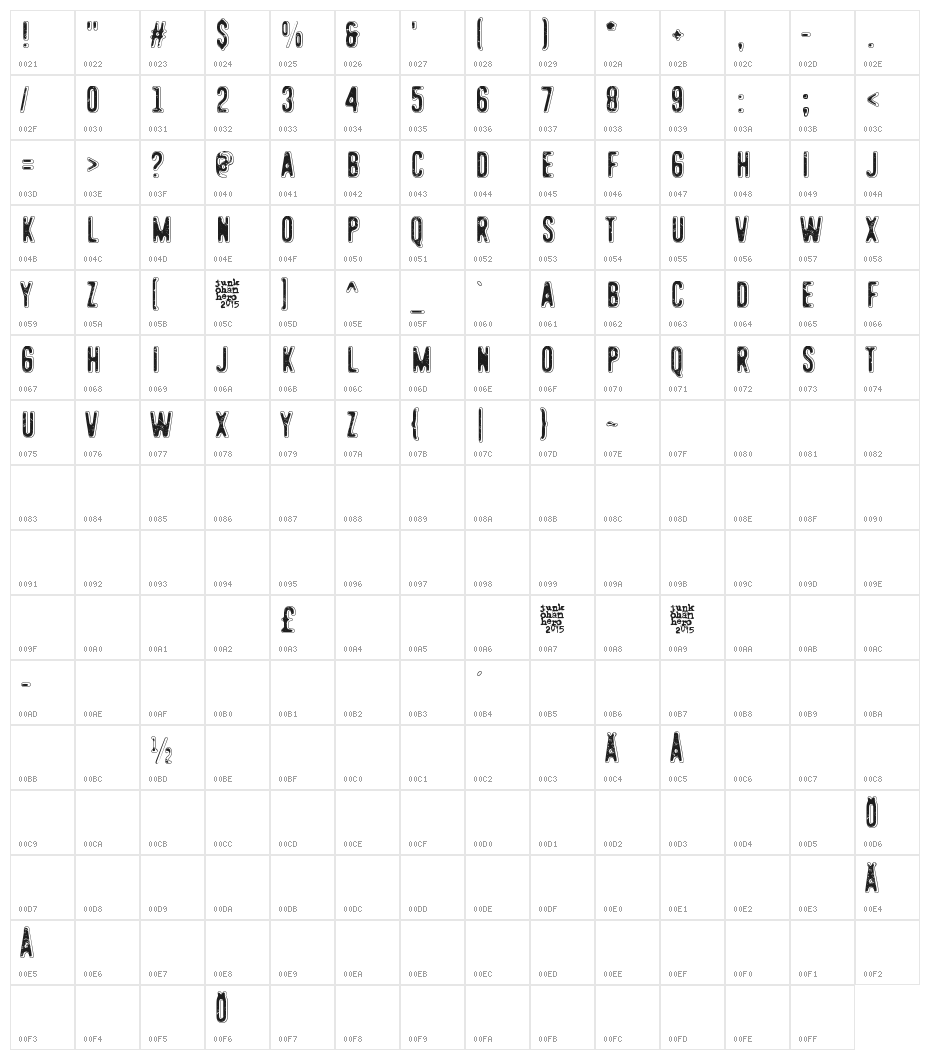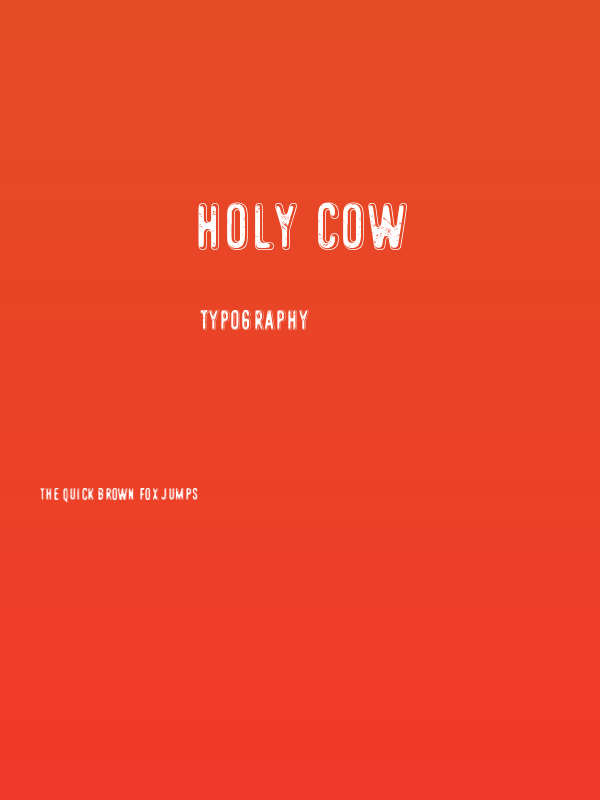
Holy Cow Font
Holy Cow Description
This font features a bold, distressed style with a vintage appeal. The characters are uppercase and lowercase letters, numerals, and a variety of special symbols. Each letter has a textured, worn-out appearance, giving it a rustic and handcrafted feel. The strokes are thick, with a consistent width throughout, and the edges are slightly rounded, adding to the retro aesthetic. The font's unique design makes it stand out, perfect for projects that require a touch of nostalgia or a rugged, handmade look.
| Proposed Projects | Ideal for vintage-themed posters, logos, apparel designs, and branding projects that require a rustic or retro touch. |